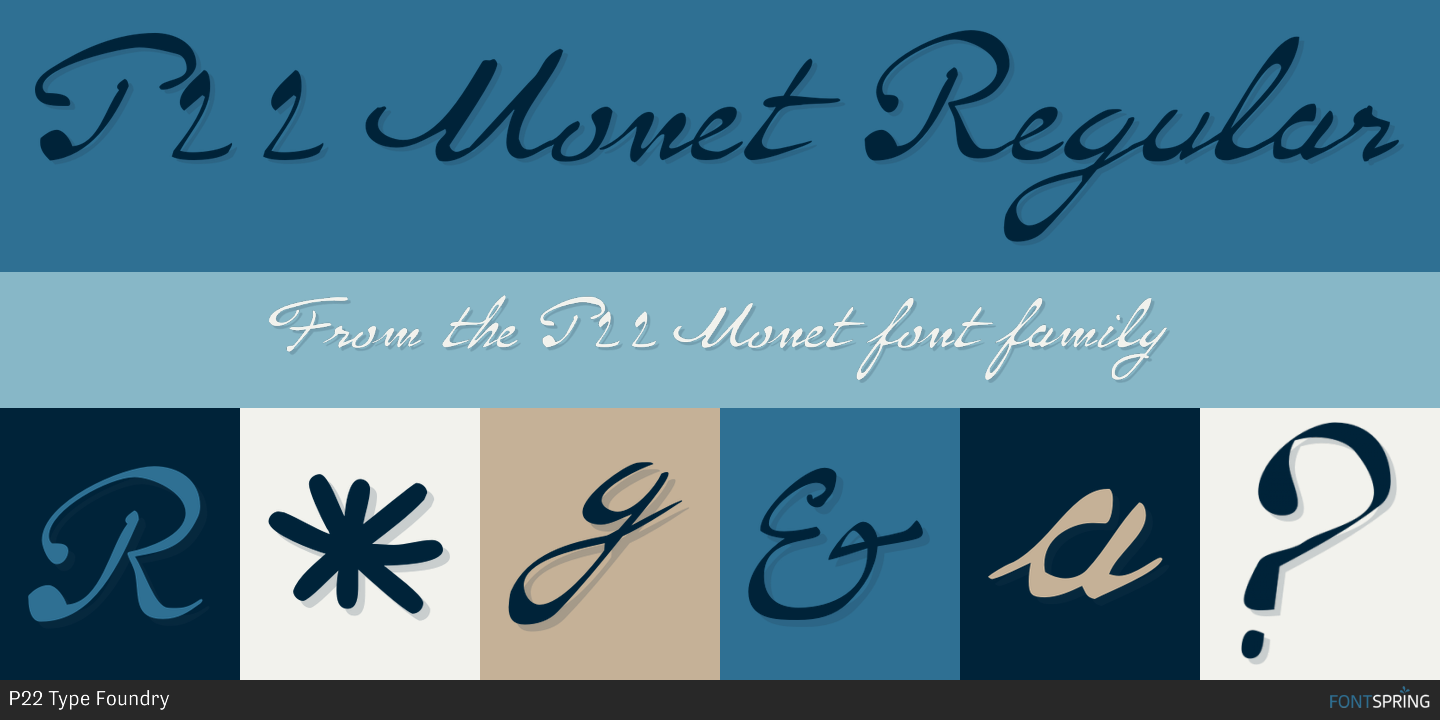
P22 Monet
P22 Monet is a dingbat, historical and script font family. This typeface has three styles and was published by P22 Type Foundry.
This font set was developed for the Albright-Knox Art Gallery and their 1999 Monet exhibition, Monet at Giverny: Masterpieces from the Musée Marmattan. Monet Regular is a fairly straightforward script font with an undulating thick and thin stroke. Monet Impressionist is a semi-legible script which can be used for decorative rather than communicative purposes. Monet Sketches features 26 icons related to Monet’s imagery.